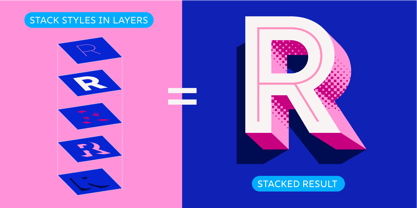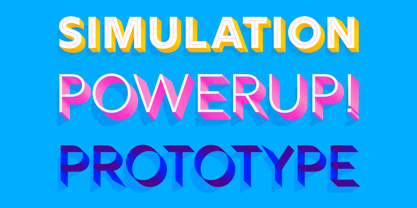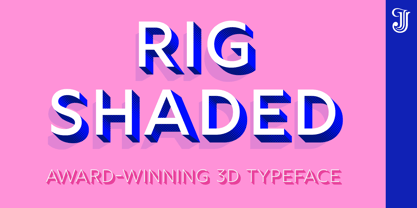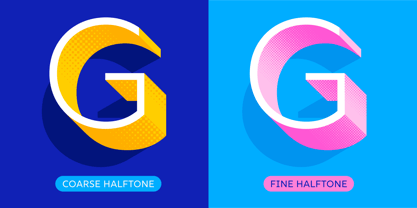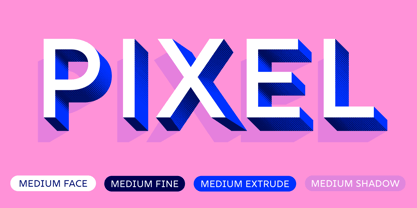
Rig Shaded
Rig Shaded is an award-winning 3D type family with a geometric sans serif at its heart. As its name suggests, Rig is designed as a framework to support a range of striking 3D effects.
It has four versatile weights including a unique ‘zero’ weight. Each has two grades of distinctive halftone shading, Fine and Coarse, which emphasises Rig’s solid appearance.
Rig developed from my quest to find ideal letter shapes for a shaded typeface while retaining their geometric principles and legibility.
Each character has been designed to ensure maximum clarity and harmony when combined with 3D effects. The extrude and shaded styles have been handcrafted to produce a consistent weight and tone.
Rig’s character set includes 230 glyphs, supporting 198 languages, including all Western, Central and South Eastern European languages.